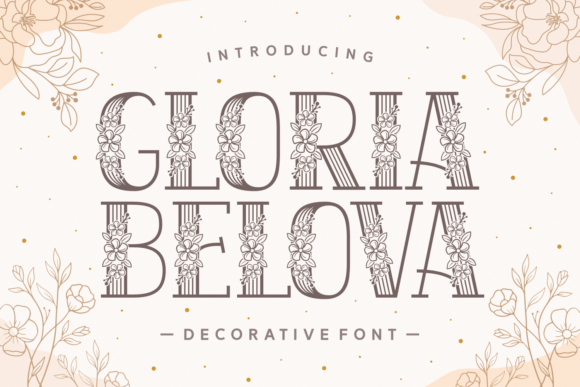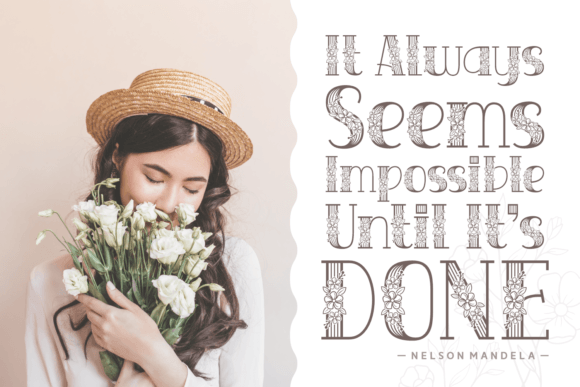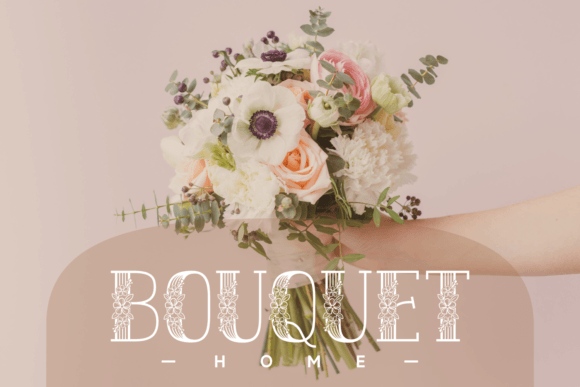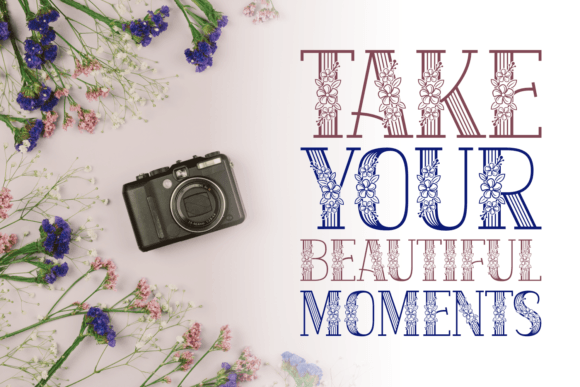
Gloria Belova Font: Elegant Floral Font for Wedding Invitations
About the Gloria Belova Font
Unleash your creativity with Gloria Belova Font, a versatile font perfect for a wide range of applications. Gloria Belova is a floral decorative font that exudes feminine beauty and grace. Delicate flowers and leaves adorn the letters, creating a sense of whimsy and romance. The flourishes and serifs add a touch of elegance and sophistication, while the bold strokes give it a strong presence. Perfect for wedding invitations, greeting cards, and any project that needs a touch of floral charm.
Gloria Belova thrives in applications requiring a delicate yet impactful visual presence. Ideal uses include wedding stationery, branding for beauty or floral businesses, short-form editorial designs, and packaging for luxury products. Its ornate nature makes it less suitable for body text or UI elements where legibility at smaller sizes is paramount. Avoid using it for lengthy paragraphs or situations demanding high readability.
This font’s personality is elegantly bold; it’s feminine yet possesses strength. To balance its ornate style, pair Gloria Belova with a clean sans-serif like Lato for a modern contrast, or a classic serif such as Garamond for a more traditional feel. A simple script font could also complement it for added sophistication in certain applications.
For a more playful approach, consider pairing it with a rounded geometric sans-serif. Avoid pairing it with other highly decorative fonts to prevent visual overload.